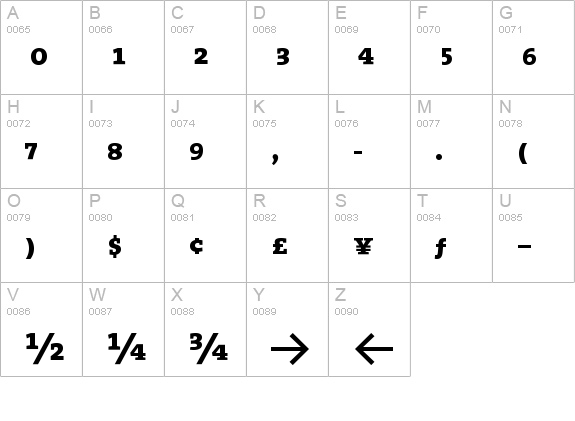
TheSerif Bold Expert Font Details
TheSerif Bold Expert is a strong, high-contrast variant in the TheSerif typeface family \xE2\x80\x94 well suited to headlines, attention-grabbing titles, and strong calls-to-action.
TheSerif Bold Expert font is a stunning typeface that exudes elegance and sophistication. Its bold and powerful design makes it perfect for headlines, logos, and any project that requires a strong and impactful visual presence. TheSerif Bold Expert font features clean lines and a classic serif style, giving it a timeless appeal that will never go out of fashion. This font is not only beautiful, but it is also incredibly versatile. Its legibility and readability make it an excellent choice for both print and digital mediums. Whether you're designing a magazine spread, a website banner, or a business card, TheSerif Bold Expert font will make your text stand out and command attention. One of the best things about TheSerif Bold Expert font is that it is free to download. This means that you can easily access and use this amazing font for your personal and commercial projects without any cost. Simply head over to FontsMarket.com, where you can find TheSerif Bold Expert font along with a wide range of other high-quality fonts. By freely offering TheSerif Bold Expert font, FontsMarket.com ensures that designers and creatives have access to top-notch typography options without breaking the bank. So whether you're a professional designer or an enthusiastic hobbyist, this font will be a valuable addition to your font library. In conclusion, TheSerif Bold Expert font is a visually striking and versatile typeface that will make your designs truly remarkable. With its bold and powerful design, it ensures that your text will capture attention and leave a lasting impression. And the best part? It's freely available for download at FontsMarket.com, making it accessible to everyone. So why wait? Enhance your creative projects with TheSerif Bold Expert font today!